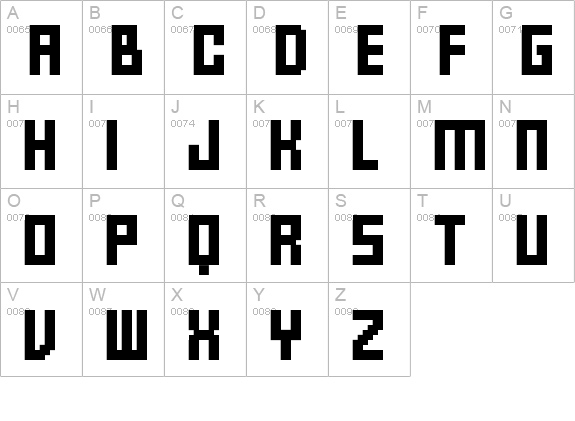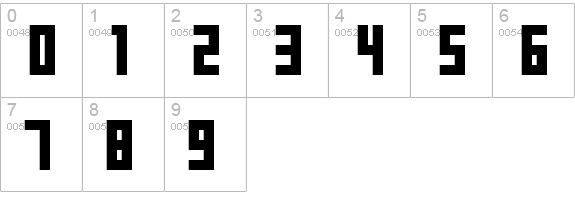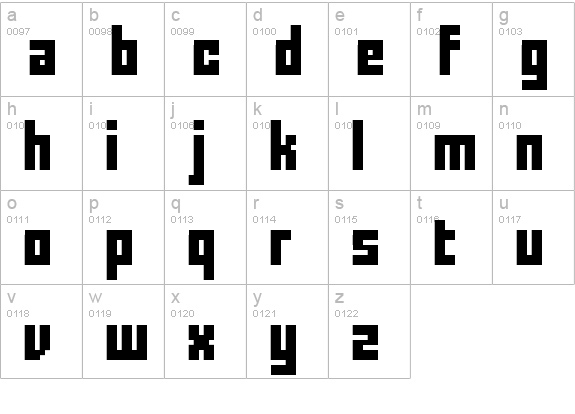
FFF Forward Font Details
Introducing FFF Forward font, a sleek and modern typeface designed to make your text stand out with a touch of elegance. This versatile font is perfect for a wide range of design projects, from branding to editorial design. Its clean lines and contemporary feel will give your designs a fresh and sophisticated look. FFF Forward font is available for free download at FontsMarket.com, making it easily accessible for all your design needs. Whether you're working on a logo, website, or print materials, this font will add a touch of professionalism and style to your projects. Don't miss out on the opportunity to elevate your designs with the FFF Forward font today!